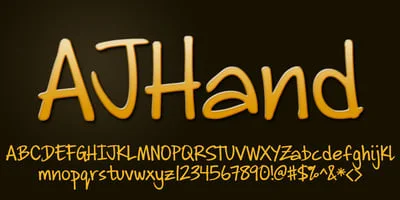
AJHand Font
The AJHand Font excels in various design applications including handwritten note branding, personal letter stationery, authentic journal designs, handcrafted artisan marketing, personal diary materials, handwritten signature identities, intimate correspondence communications, authentic hand-lettered signage, personal memoir publications, and heartfelt personal projects that demand handwritten authenticity and personal sophistication.
What makes the AJHand Font exciting is its intimate embodiment of personal handwriting and authentic human touch through letterforms that capture the essence of genuine penmanship and the warm connection of hand-written communication. This typeface demonstrates exceptional personality through carefully crafted characters that suggest the natural flow of personal handwriting, the individual quirks of human penmanship, and the emotional authenticity that makes handwritten messages so personally meaningful and emotionally resonant. The font's handwritten personality makes it perfect for personal brands and intimate businesses seeking to communicate human authenticity, personal touch, and the kind of handcrafted warmth that creates memorable personal experiences through typography that literally writes with human heart.
The AJHand Font family typically includes personal weight variations that enhance the handwritten aesthetic, featuring natural styling options and extended character sets optimized for personal communications and intimate applications. These family options often include handwriting-inspired alternates, personal symbols, and authentic decorative elements that provide designers with comprehensive tools for creating genuinely handwritten typography that celebrates human touch while maintaining contemporary design appeal and personal credibility.
Personal brand professionals and intimate service organizations consistently select AJHand Font for projects requiring typography that communicates handwritten authenticity and personal sophistication. This typeface delivers exceptional performance in personal marketing, intimate branding, and handwritten communications where establishing human connection and creating warm personal atmosphere is essential for intimate engagement. The font's handwritten character makes it particularly effective for stationery and memoir applications. Download AJHand Font today to access this personally authentic typeface that transforms handwritten communications with its human elegance and personal sophistication, creating compelling intimate experiences that honor the magnificent warmth of human touch while celebrating the personal connection that defines authentic handwritten culture and human communication excellence.